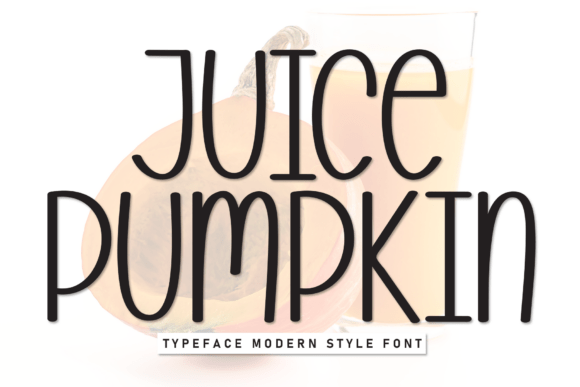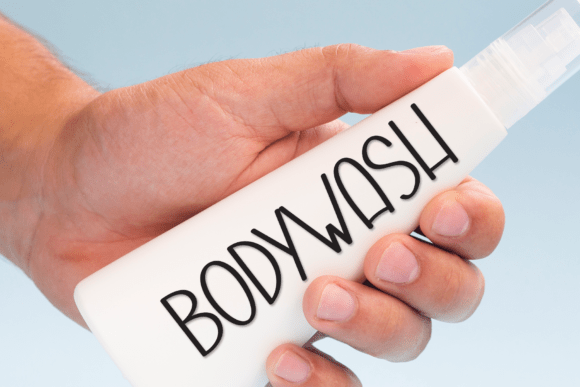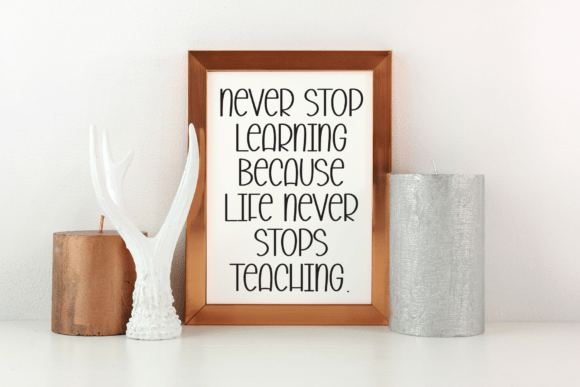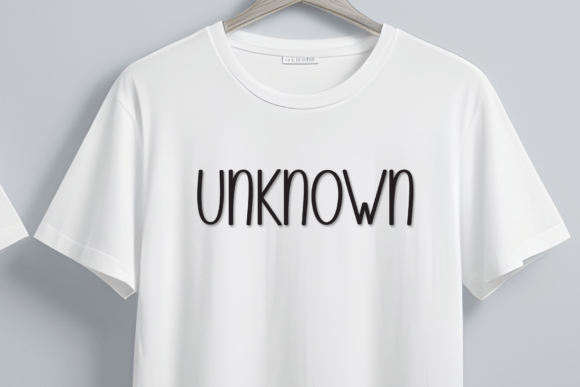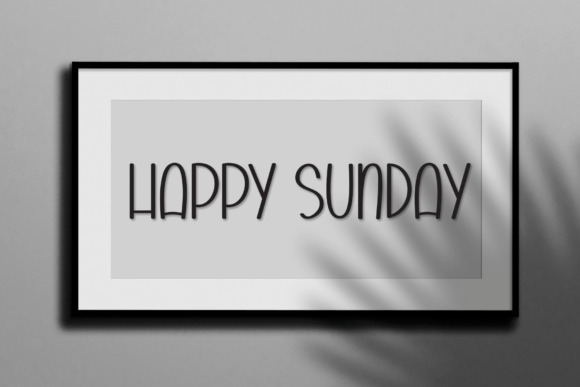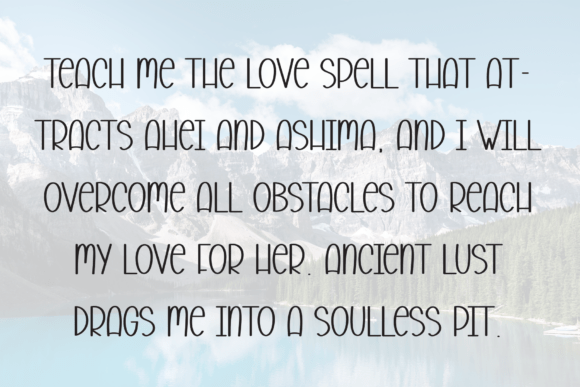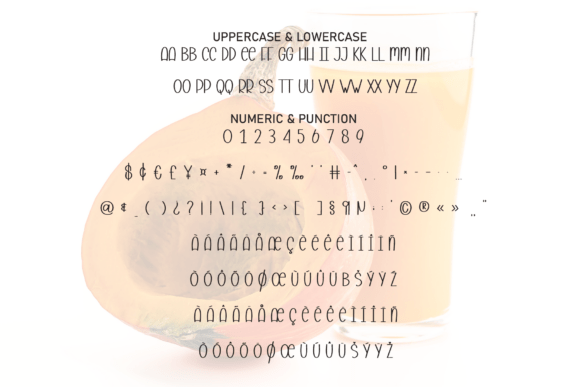
Discover the Delight of Handwritten Charm
Have you ever stumbled upon the perfect font that makes your design project feel like a work of art? It’s that magical moment when the words on the page come alive, and the message resonates with your audience. For designers seeking to add a sprinkle of fun and whimsy to their creations, we’re excited to introduce the Juice Pumpkin Font, a delightful and engaging handwritten display font that’s sure to captivate.
This charming font is perfect for crafting heartwarming wedding invitations, captivating cards, and other designs that require a playful touch. With its friendly charm and allure, the Juice Pumpkin Font stands as a flawless solution for designers looking to add a dash of fun and creativity to their projects. Whether you’re working on a personal or professional project, this font is sure to bring a smile to your face and inspire your creativity.
Juice Pumpkin Font Key Features
- Font Family: Juice Pumpkin Font
- Font Size: 1000 glyphs
- Unique Characteristics: Distinctive, playful, and whimsical design with a mix of handwritten and digital elements, making it perfect for creative and artistic projects.
- Font Weight: Multiple weights and styles available, including regular, bold, italic, and bold italic.
Juice Pumpkin Font Review
I’ve had the chance to dive into the Juice Pumpkin Font, and overall, I’m impressed. The font’s unique style and aesthetic make it perfect for a variety of projects. Here are some things that stood out to me: ✨
- Expressive Style – The font’s quirky and playful nature makes it ideal for creative projects or branding that wants to stand out.
- High Customization Options – Juice Pumpkin Font offers a range of customization options, making it easy to tailor the font to your specific needs.
- Good for Headlines and Titles – The font’s bold and attention-grabbing nature makes it perfect for headlines, titles, and other large-scale text.
- Limited Readability in Small Text – While the font looks great in large sizes, it can become difficult to read when scaled down.
- May Not Be Suitable for Long Blocks of Text – The font’s expressive style can make it challenging to read when used for large blocks of text.
Overall, I think the Juice Pumpkin Font is a great addition to any designer’s toolkit. While it may have some limitations, its unique style and customization options make it perfect for a variety of projects. I’d definitely recommend giving it a try!
Getting the Most Out of Juice Pumpkin Font
- Use it for titles and headings to add a touch of whimsy.
- Pair it with bold fonts for a striking contrast.
Some common use cases for Juice Pumpkin Font include:
- Designing for children’s products or education materials.
- Creating invitations or party decorations.